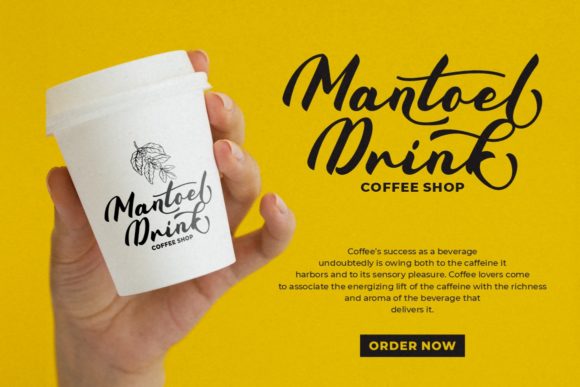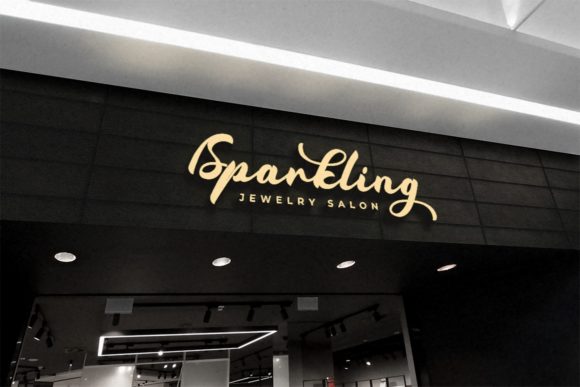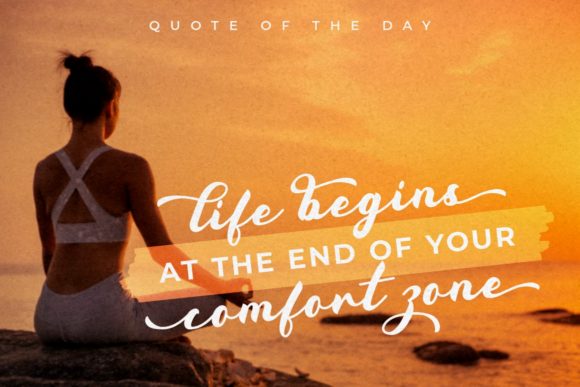
The Perfect Script for Your Next Design Masterpiece
Have you ever found yourself staring at a blank page, trying to spark that creative spark that drives your designs? The moment when everything comes together, and your vision is finally brought to life? For designers, these moments are what make all the hard work worth it. And what better way to make them happen than with the perfect font?
Enter the Coldcoast Font, a charming handwritten script that’s designed to help you create spectacular designs. With its varying baseline, smooth lines, gorgeous glyphs, and stunning alternates, this font is a game-changer for any designer looking to add a touch of elegance to their work. Whether you’re a seasoned pro or just starting out, the Coldcoast Font is an invaluable tool that’s sure to take your designs to the next level.
Coldcoast Font Key Features
- Unique Characteristics: Coldcoast Font features a unique blend of modern and vintage elements, with intricate details and subtle textures that evoke a sense of nostalgia and sophistication.
Coldcoast Font Review
I’ve been playing around with the Coldcoast Font, and here are my honest thoughts.
- ✨ The font’s unique blend of modern and vintage elements is a breath of fresh air in the world of typography. It’s perfect for projects that need a touch of nostalgia.
- ✨ Coldcoast Font is highly customizable, making it an excellent choice for designers who want to fine-tune the look of their project.
- ✨ The font is also quite versatile, working well in both digital and print applications.
- ⚠️ One major limitation I’ve noticed is that Coldcoast Font may not be the best choice for body text, as it can be quite busy and overwhelming when used extensively.
- ⚠️ Another limitation is that the font’s unique style may not appeal to everyone, and some users may find it too eccentric.
Coldcoast Font is an excellent addition to any designer’s toolkit, offering a unique and customizable solution for projects that require a touch of personality. While it may not be suitable for all applications, it’s definitely worth considering for the right project.
Tips for Getting the Most Out of Coldcoast Font
1. Experiment with different font sizes and styles to create visual interest.
2. Use Coldcoast Font in combination with other fonts to create a unique look.
3. Consider using Coldcoast Font for headings or titles to add a touch of elegance.
Coldcoast Font is ideal for:
1. Creating a luxurious or elegant design.
2. Adding a touch of sophistication to your branding or marketing materials.
3. Creating a unique and memorable visual identity.
Alternatives to Coldcoast Font
Montserrat is a modern sans-serif font designed for urban environments. It’s a great alternative to Coldcoast Font for projects that require a clean and minimalist aesthetic. Montserrat is more geometric and has a more angular feel compared to Coldcoast Font, making it perfect for digital products and mobile apps.
Open Sans is a highly legible sans-serif font that works well in a variety of contexts. It’s a great choice for projects where you need a neutral and approachable font. Compared to Coldcoast Font, Open Sans has a more rounded feel and is generally more readable at smaller font sizes.
Playfair Display is an elegant serif font that’s perfect for projects that require a touch of sophistication. It’s a great alternative to Coldcoast Font for projects like luxury brands, high-end magazines, and fine art. Compared to Coldcoast Font, Playfair Display has a more luxurious and ornate feel, making it perfect for projects where you want to convey a sense of refinement and elegance.
Q: How do I access the advanced features of the Coldcoast Font, such as ligatures and swashes?